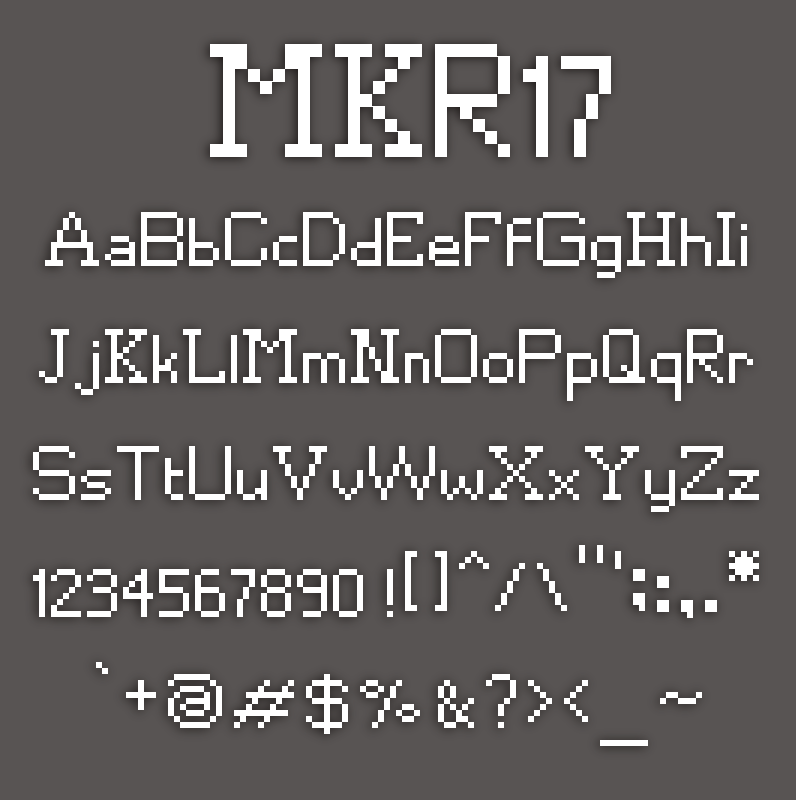
Font name: | MKR17 |
Author: | Makorie |
Note by Makorie | |
First ever pixel font of mine, so it's not perfect at all, but I liked the way it turned out. 1 / You must visibly credit 'Makorie' if used in games. 2 / Please do not claim as your own when used in other projects. (Art, videos, ...etc.) Credit is appreciated. 3 / Do not use for ANY commercial works. This is not negociable. 4 / I'd love to know if you used this font in any project. Feel free to let me know about it on twitter (Makoriie) or on youtube (Makorie). |